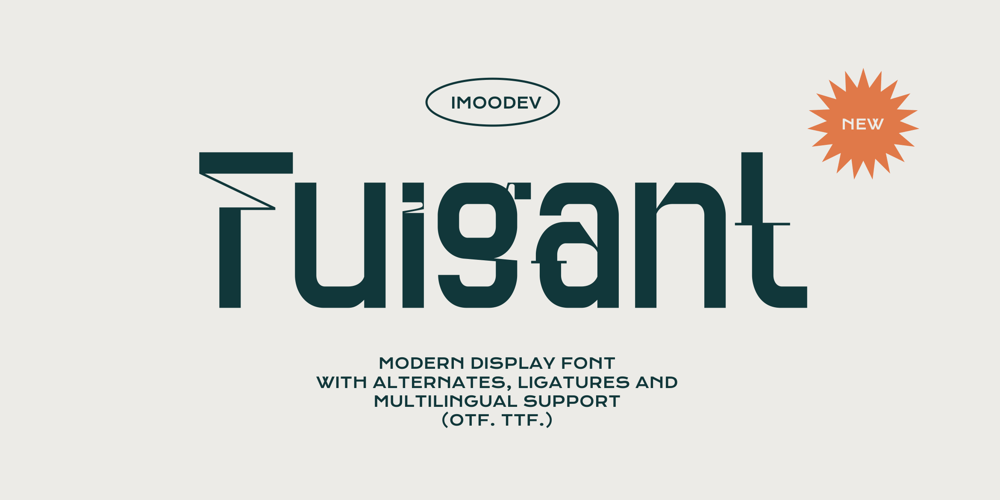
Fuigant Font Family was designed by Aulia Savira Putri and published by Imoodev. Fuigant contains 1 styles and family package options. Fuigant is a modern futuristic font that has smooth curves and a visual style a can embody charm and elegance in every lettering, making your work look stunning and attractive.